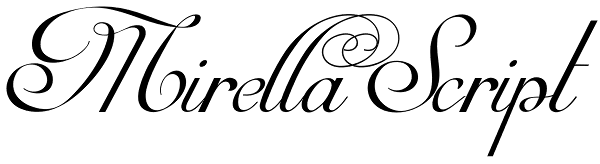
Mirella Script
Mirella Script is a modern and clean approach of the classic French Bastarde script style. Mirella has the follow resources : - Lots os ligature forms (using contextual alternates open-type feature), - many stylistic alternates for each letter...